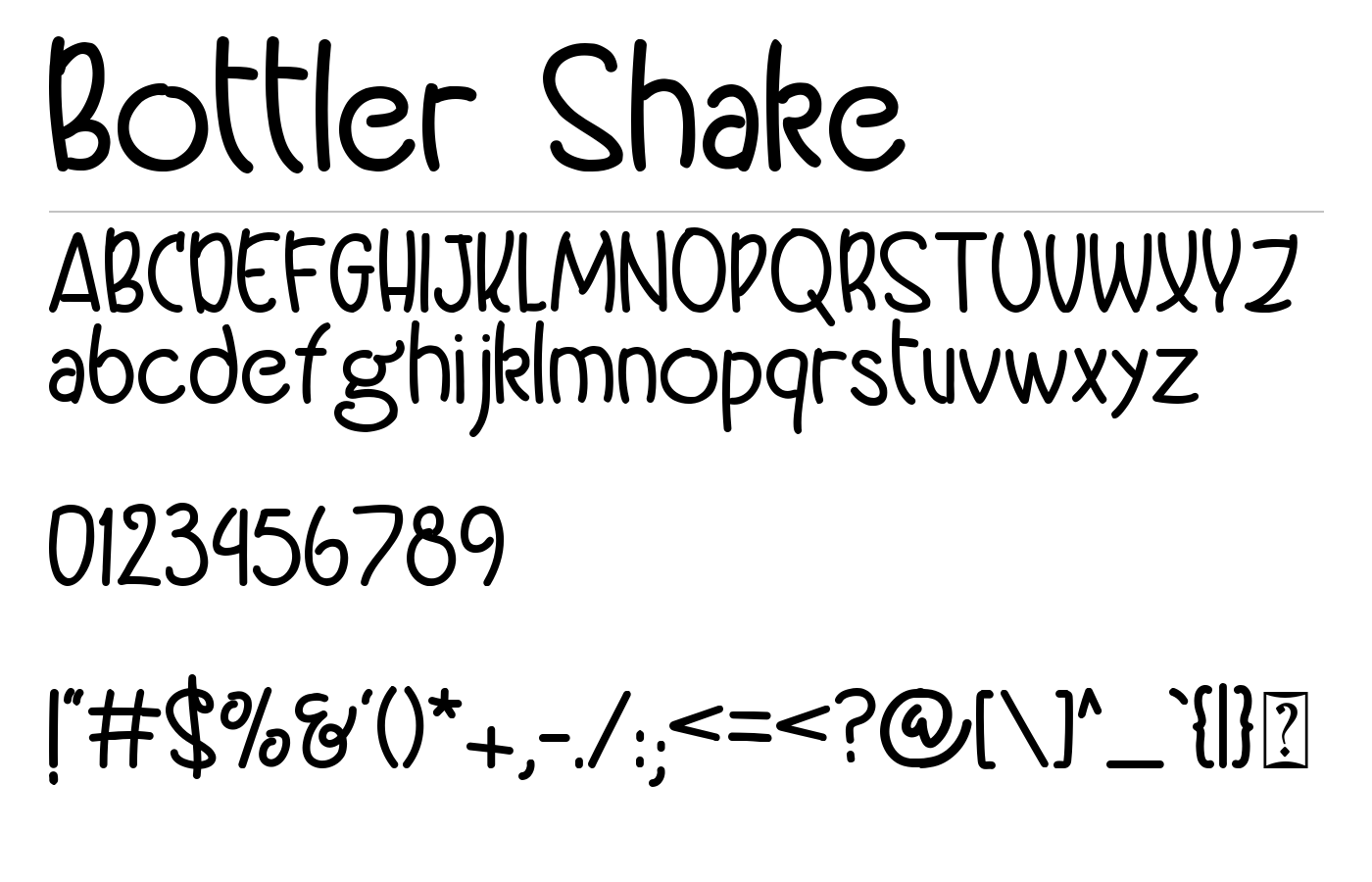
Bottler Shake is a playful and casual handwritten font characterized by its tall, slightly irregular letterforms and smooth, rounded strokes. Its friendly and approachable style makes it ideal for informal designs, children's books, or creative projects that seek a whimsical, handmade feel. This font works well for headlines, logos, and packaging where a lighthearted and personal touch is desired.
Bottler Shake Font
About Bottler Shake Font